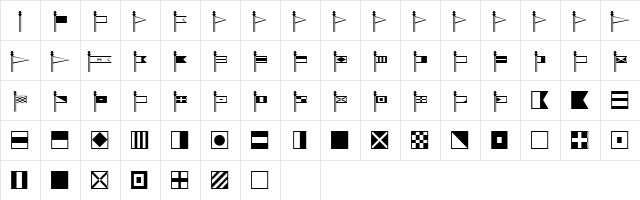
SignalFlags Regular
Design Context for SignalFlags Typeface
SignalFlags is a composed and adaptable typeface that performs quietly and consistently across a wide range of design contexts.